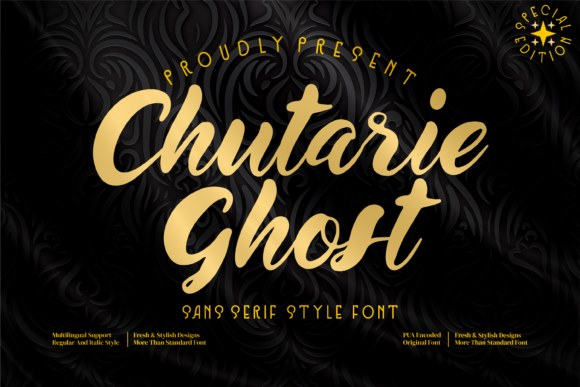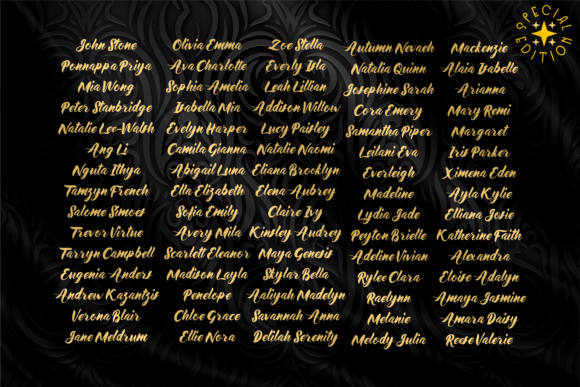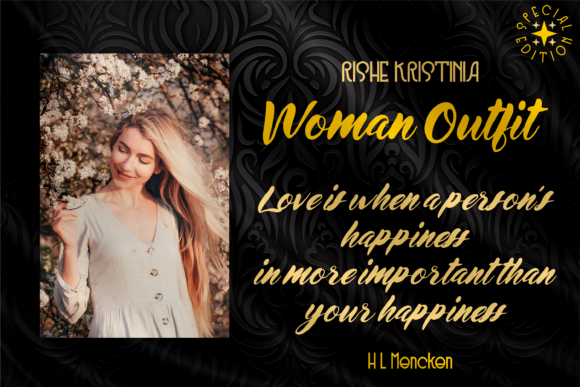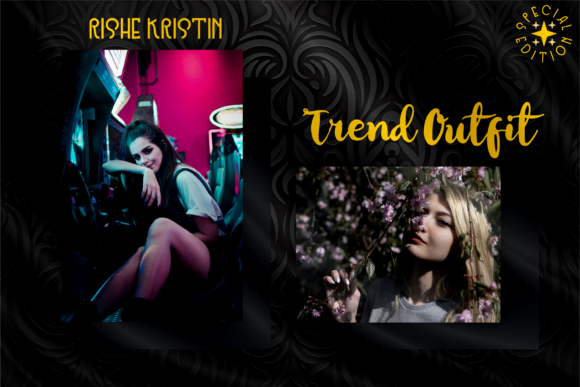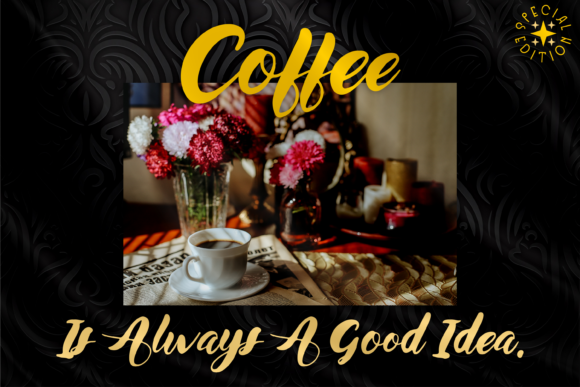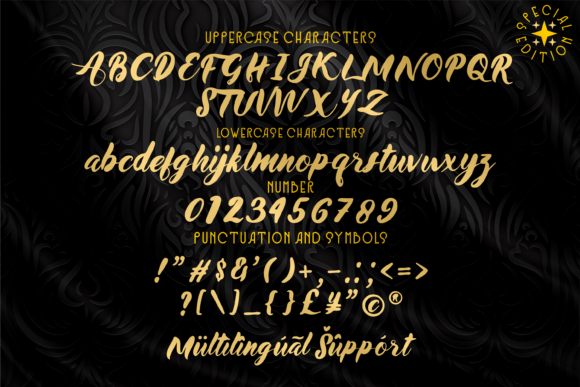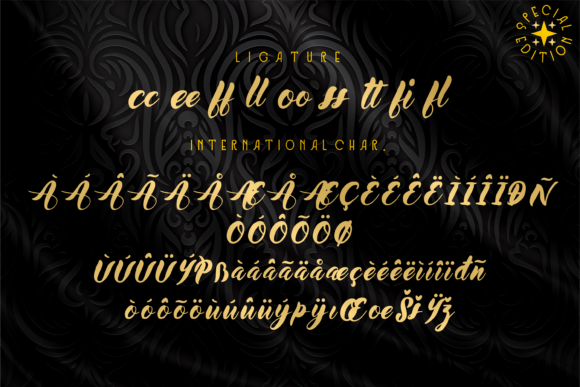
Chutarie Ghost Font
About Chutarie Ghost Font
Chutarie Ghost is an elegant and dainty handwritten font that features sweet and delicate swashes. This original look will appeal to a wide range of crafty ideas, from letterheads and titles, to stationery.